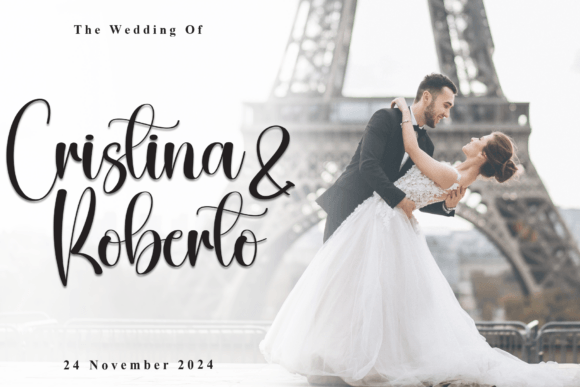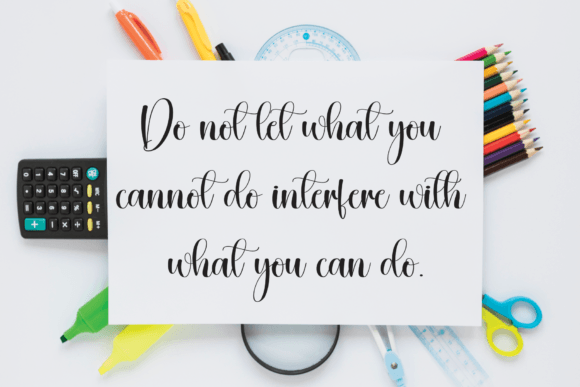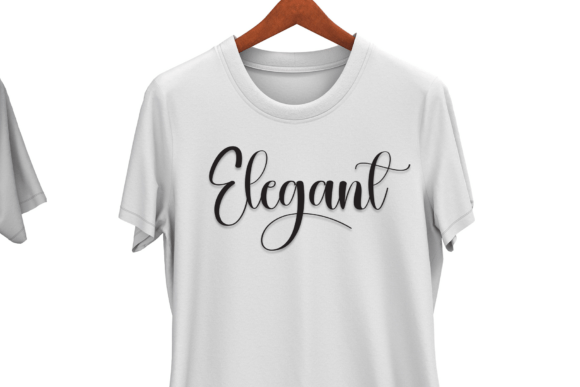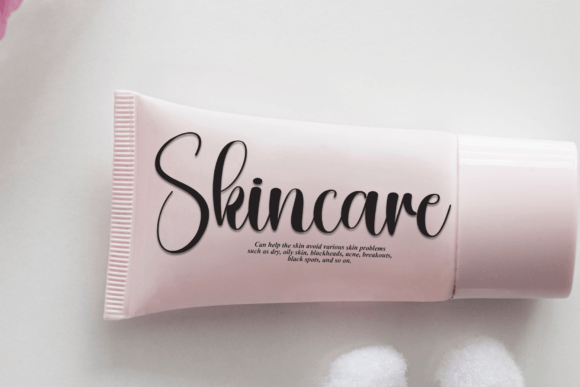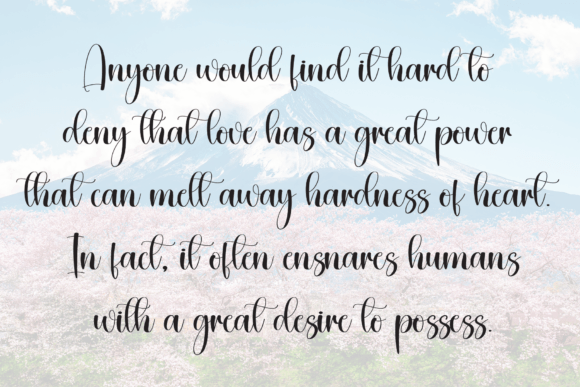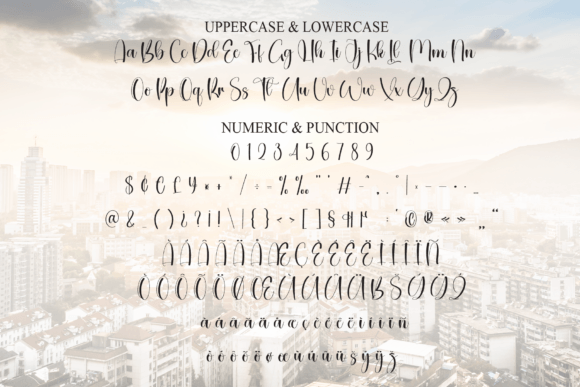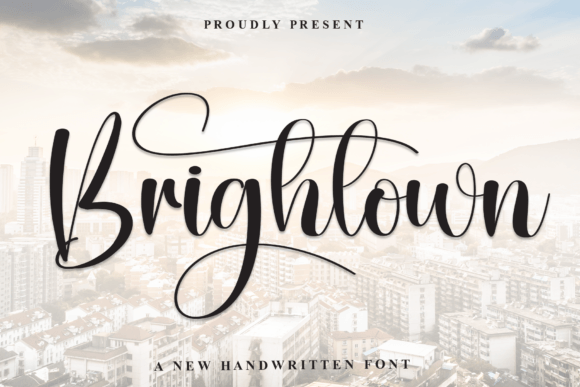
Introducing Brightown Font: Elevate Your Designs with Elegance and Modern Flair
In the world of typography, a font can make or break the aesthetic of a design project. For those seeking a typeface that exudes elegance, sophistication, and a touch of modernity, Brightown Font is an exceptional choice. This stylish handwritten script font is meticulously crafted to bring a personal, refined touch to various design endeavors, including branding, invitations, social media content, and more.
The Essence of Brightown Font
Brightown Font is characterized by its flowing strokes and organic curves, which collectively contribute to its warm and inviting appearance. Unlike more traditional or rigid typefaces, Brightown offers a sense of fluidity and movement, making it perfect for designs that aim to convey a sense of dynamism and creativity. Its elegant and modern flair ensures that it stands out in a crowded digital landscape, providing designers with a unique tool to make their projects memorable.
Key Features of Brightown Font
- Elegant Handwritten Script: Brightown boasts a beautiful, handwritten script that adds a personal touch to any design. Its elegance is undeniable, making it suitable for high-end branding, luxury invitations, and sophisticated social media graphics.
- Modern Flair: What sets Brightown apart is its modern twist. The font strikes a perfect balance between traditional elegance and contemporary style, ensuring it meets the needs of modern design trends.
- Flowing Strokes and Organic Curves: The font’s design is highlighted by its smooth, flowing strokes and organic curves. These features not only enhance readability but also contribute to its aesthetic appeal, making it a joy to use in various design projects.
- Versatility: Brightown is incredibly versatile, suitable for a wide range of applications. From professional branding and product packaging to personal invitations and social media posts, this font can elevate any text with its refined charm.
- Effortless Charm: One of the most compelling aspects of Brightown Font is its ability to add an effortless charm to designs. It achieves a sophisticated look without appearing overly formal, making it an excellent choice for brands and designers aiming to connect with their audience on a more personal level.
Applications of Brightown Font
Brightown’s versatility is one of its strongest assets, making it suitable for various design applications:
- Branding: For businesses looking to establish a strong brand identity, Brightown can add a touch of elegance and professionalism to logos, business cards, and marketing materials.
- Invitations: Whether it’s a wedding invitation, a birthday party, or a corporate event, Brightown can elevate the design with its sophisticated and inviting appearance.
- Social Media: In the realm of social media, standing out is crucial. Brightown can help create engaging and visually appealing content that captures the audience’s attention.
Why Choose Brightown Font?
In a market flooded with typefaces, Brightown Font stands out for several reasons:
- Unique Aesthetic: Its blend of elegance and modernity offers a fresh alternative to more commonly used fonts.
- Emotional Connection: The personal touch it brings can help create an emotional connection with the audience, a crucial aspect of effective design.
- High Versatility: Its suitability for a wide range of projects makes it a valuable addition to any designer’s toolkit.
Brightown Font is a stylish and versatile typeface that can add a touch of elegance and modern flair to any design project. Its unique blend of flowing strokes, organic curves, and effortless charm makes it an ideal choice for designers and crafters looking to create memorable and impactful designs. Whether you’re working on branding, invitations, social media content, or any other project, Brightown is sure to elevate your work with its refined and sophisticated aesthetic.
Discover the potential of Brightown Font and take your designs to the next level with its beautiful, handwritten script and modern elegance.